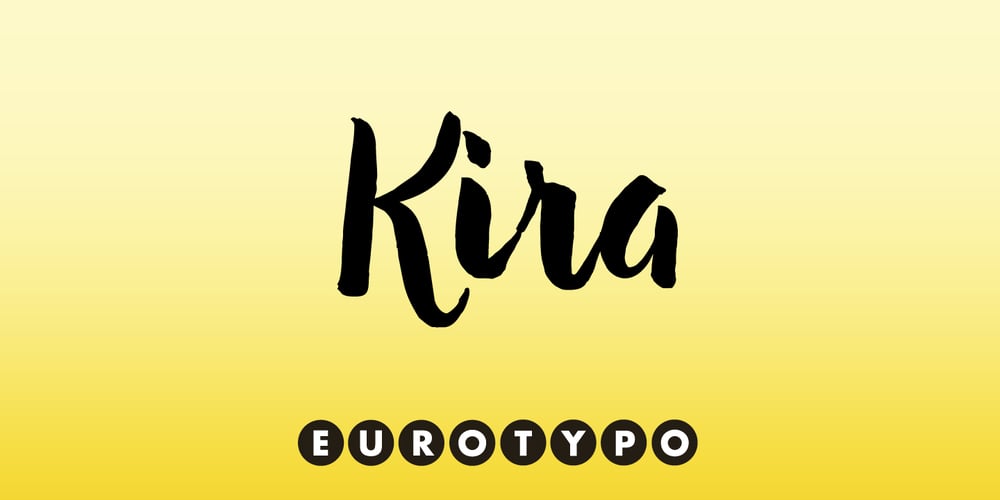
Kira Font Family was designed by Carine de Wandeleer and published by Eurotypo. Kira contains 1 styles and family package options. Kira is a modern hand-painted script with an irregular baseline. Rough edges and imperfect lines give to this brush font a unique and trendy look. All glyphs have been carefully painted giving your words a wonderful flow. Fat and thin stroke in this font impresses the harmony. Want to give your projects an organic, hand-painted look? Kira font contains 717 glyphs, with inky lines, and “perfect or imperfect” painted edges, including a few extra character alternates, stylistics and contextual alternates, swashes, stylistics sets, ligatures for a genuine hand-lettered effect. This font includes OpenType features that may only be accessible via OpenType-aware applications, a Central European language support. To activate the optional glyphs you may click on Swash, Contextual, Standard Ligatures and Discretionary, Titling, or Stylistic sets buttons in any OpenType savvy program or manually choose the characters from Glyph Palette. Bonus: 40 useful ornaments and a lot of catchwords that you use for the most demanding design project! Kira looks lovely on wedding invitations, greeting cards, logos, business cards and is perfect for using in ink or watercolour based designs, fashion, magazines, food packaging and menus, book covers and more!